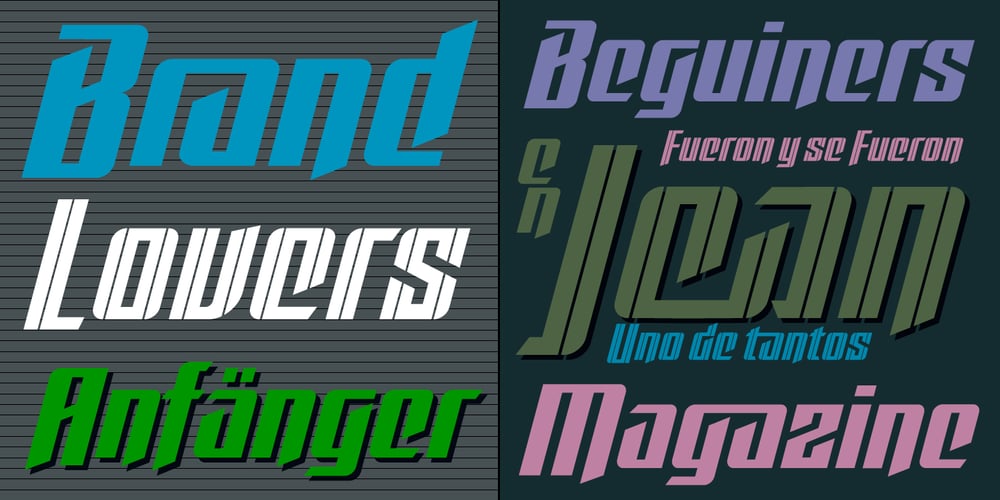
Artime Font Family was designed by John Moore and published by John Moore Type Foundry. Artime contains 3 styles and family package options. Artime is a dynamic display font based on strong graphic elements with rectilinear forms. Artime came in two style forms; a solid one called Flat and a decorative form with crisscrossed of vertical lines called Deco. Artime comes with Open Type features and interesting ligatures. Both forms are ideal for creating logos and headlines.